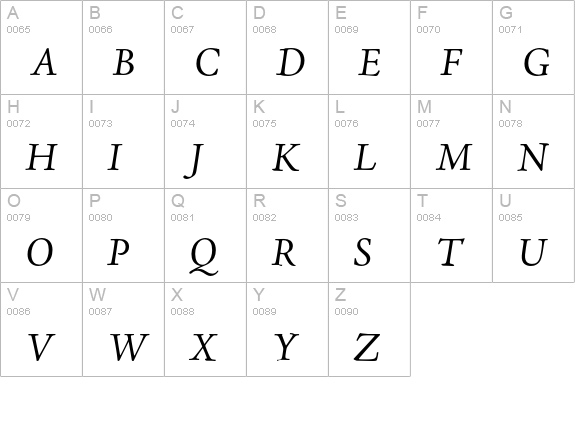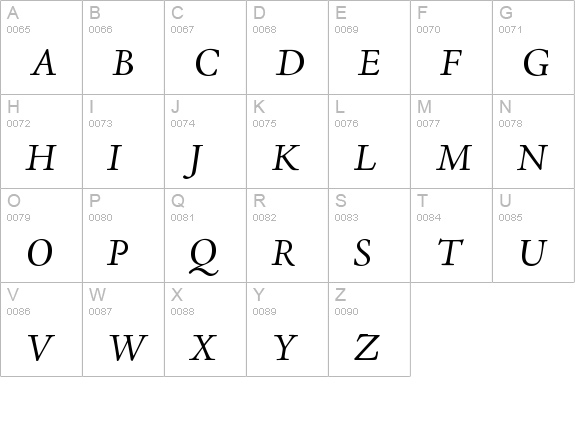
Adobe Jenson Pro Italic Font Details
Adobe Jenson Pro Italic is a distinctive, italic variant in the Adobe typeface family \xE2\x80\x94 well suited to design and typography projects.
The Adobe Jenson Pro Italic font exudes elegance and sophistication with its graceful italic style. Its flowing curves and gentle slant add a touch of refinement to any design project. The italicized characters provide a sense of movement and dynamism, making it ideal for conveying a sense of drama or emphasis. Best of all, this exquisite typeface is available for free download at FontsMarket.com. Whether you're working on a professional publication, a creative project, or simply want to elevate your typography game, Adobe Jenson Pro Italic is a versatile choice that will captivate your audience. Unlock the beauty and versatility of this font today by downloading it for free and watch your designs come to life with a touch of elegance.